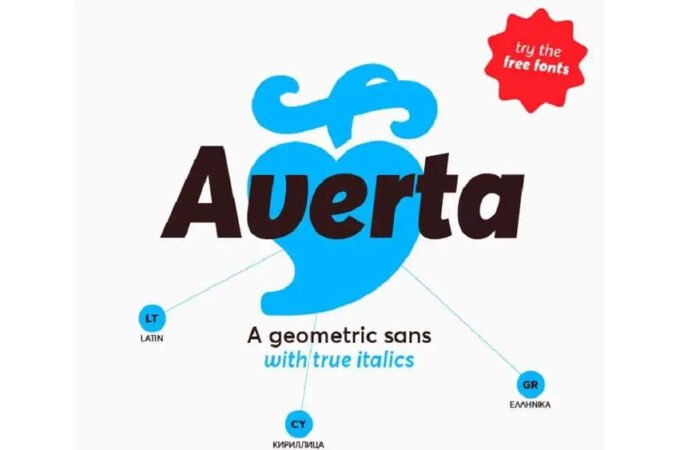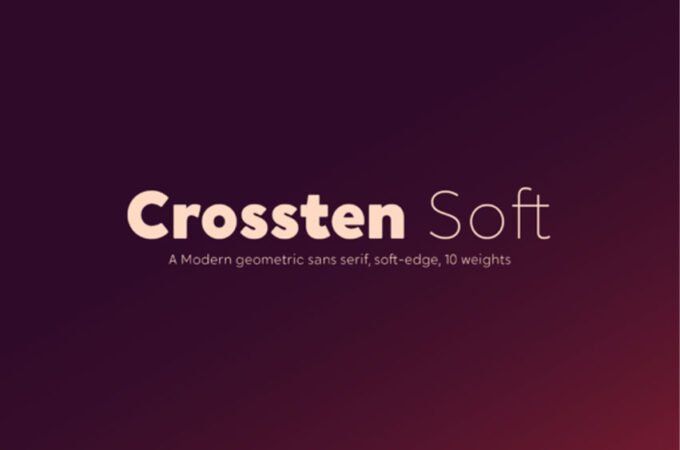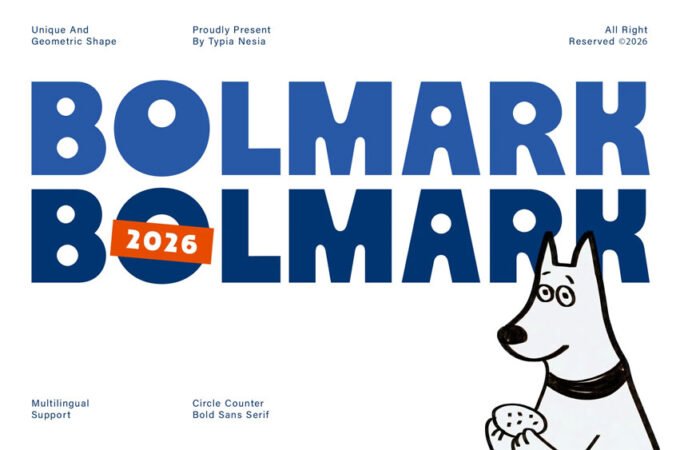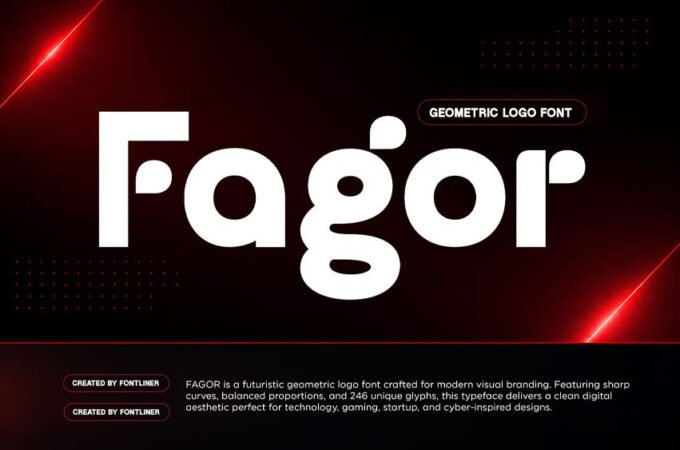
Geometric fonts are typefaces built from simple geometric shapes such as circles, squares, and triangles. Their letters often have clean, precise lines and balanced proportions, giving them a modern and minimal look. Because of their clear structure and visual simplicity, geometric fonts are commonly used in branding, logos, posters, and digital design to create a sleek and contemporary style.
Broyek Font is a geometric display font that blends Y2K futurism with sleek modular design. Its sharp angles and tech-inspired forms evoke the digital...
Gazine Font Geometric Rounded Bold Font is a bold and authentic display font. The font is suitable for any branding project like logo,...
Gronik Font is a bold geometric display sans serif built for striking and modern typography. Combining solid shapes, smooth curves, and a confident...
Gaprio Display Font is a bold geometric display sans crafted for modern branding, editorial layouts, posters, and fashion-forward typography. Designed with strong proportions,...
Fagor Font is a futuristic geometric logo font designed to bring a clean modern aesthetic into contemporary branding projects. Built with balanced proportions,...
Deluxe Font is a display font with unique lowercase that will make your design looks futuristic and modern. You can use this font...
Boulevard Sans Font is a geometric sans serif typeface with a little bit of retro touch designed by Takoliko Studio. It comes with...
Panton Font New Narrow version of 18 weights • Bulgarian Localization Support • Tabular Figures • Case-Sensitive Punctuation • Extended Glyph Case •...
Bolmark Font is a bold retro Bauhaus sans serif font that blends modern geometric structure with a playful and creative spirit. Inspired by classic...
Factoria Font offers a geometric, square slab. A hard-working family can get from the side of the industrial building and into a sports...
Galano Grotesque Font family is a geometric sans. It has a modern streak because of the harmonization of width and height, especially in...
Crossten Soft Font is a delicate and thin lettered sans serif font. No matter the topic, this font will be an incredible asset...